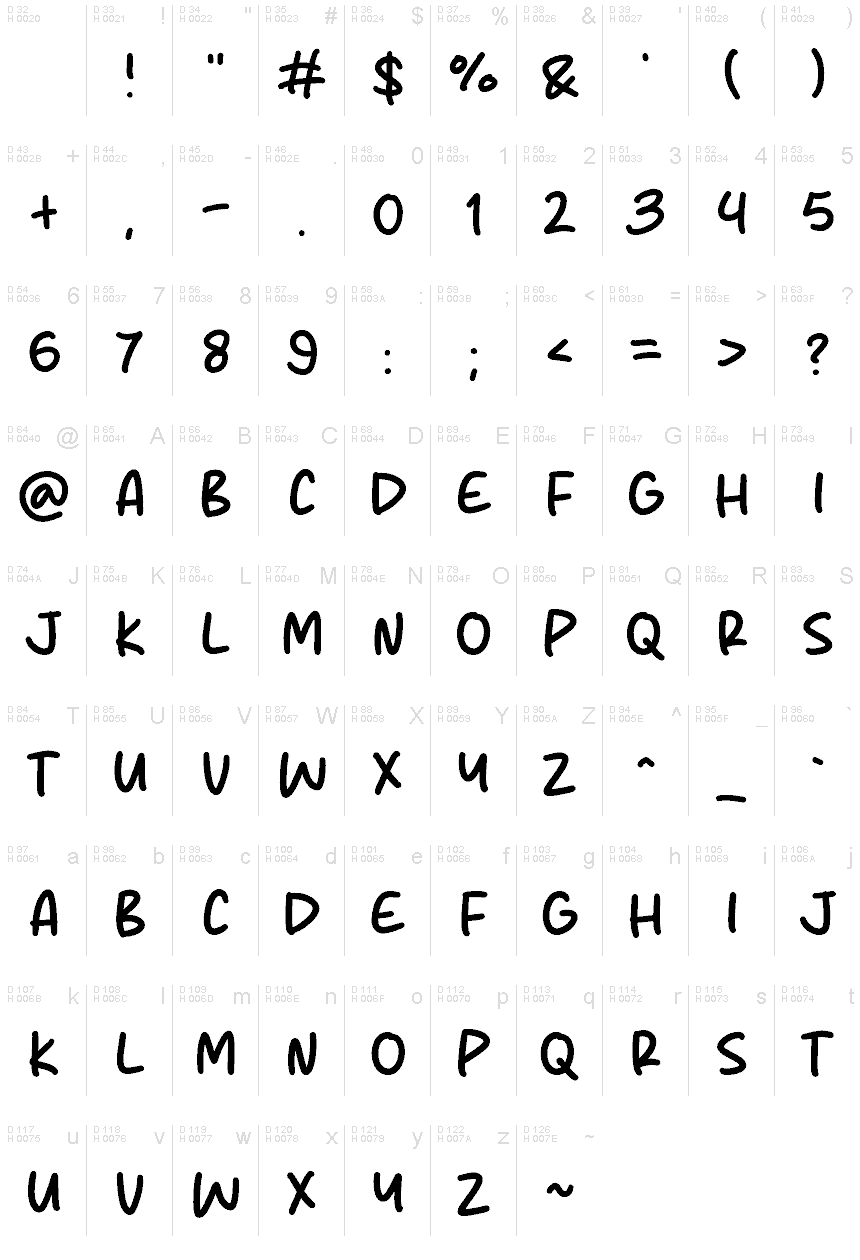
Introducing Monday Spark, a bold script font that will add excitement and personality to your design projects. Created by MJType, this handwritten style font brings an edgy vibe to branding designs and is perfect for apparel designs. Monday Spark looks like the result of a black marker pressed over a white canvas, with a distinctive style that mixes both contemporary and classic aesthetics.
Use this script font to create amazing logos for sports gear brands and vintage apparel, eye-catching graphic illustrations for surf shops, eye-catching packaging designs for skateboard decks and wax, dashing headlines for magazines or music albums, and unique branding designs for food brands. If you decide to use the letters as images, they can be incorporated into a variety of branding designs for clothing brands or accessories, and can also be used for eye-catching posters and postcards.